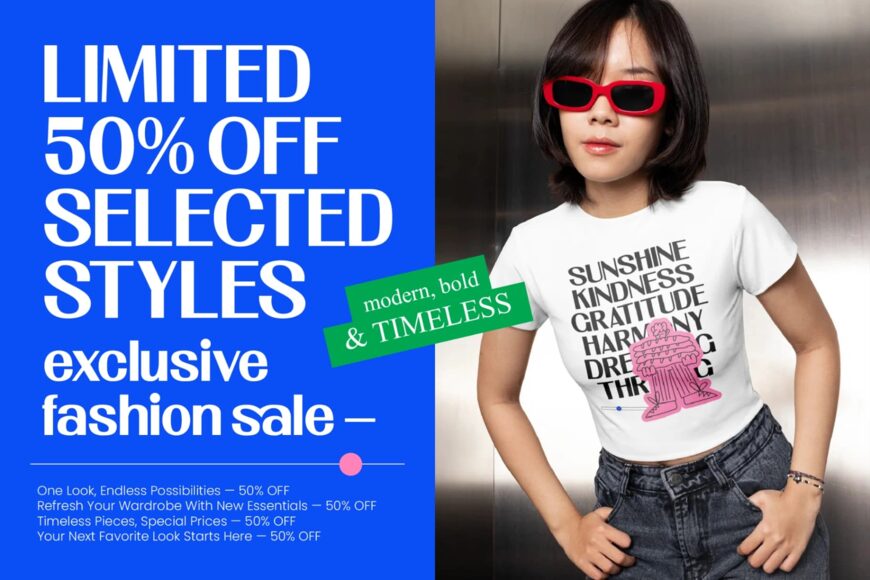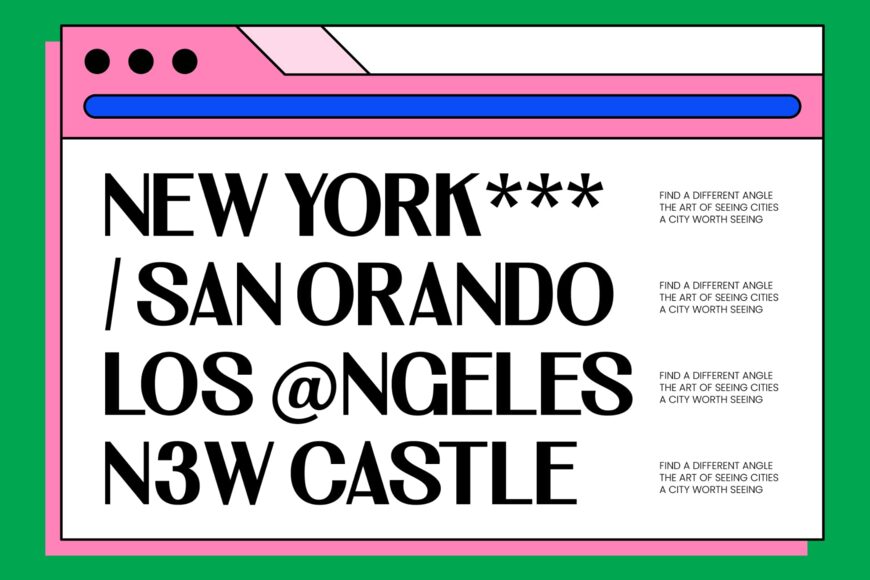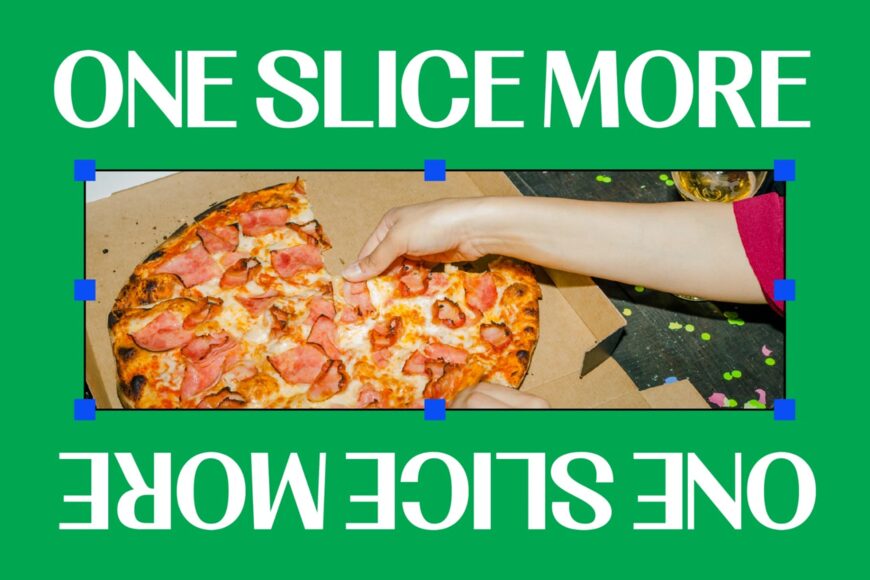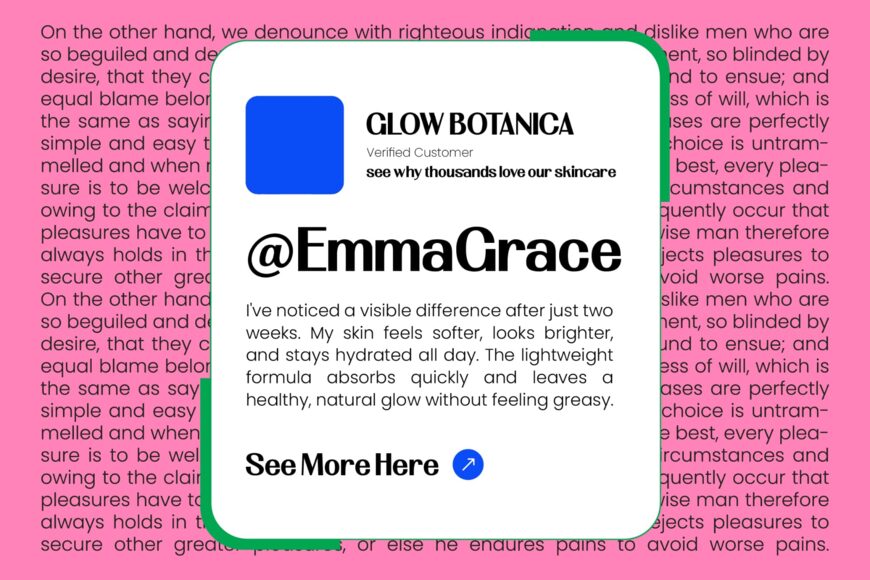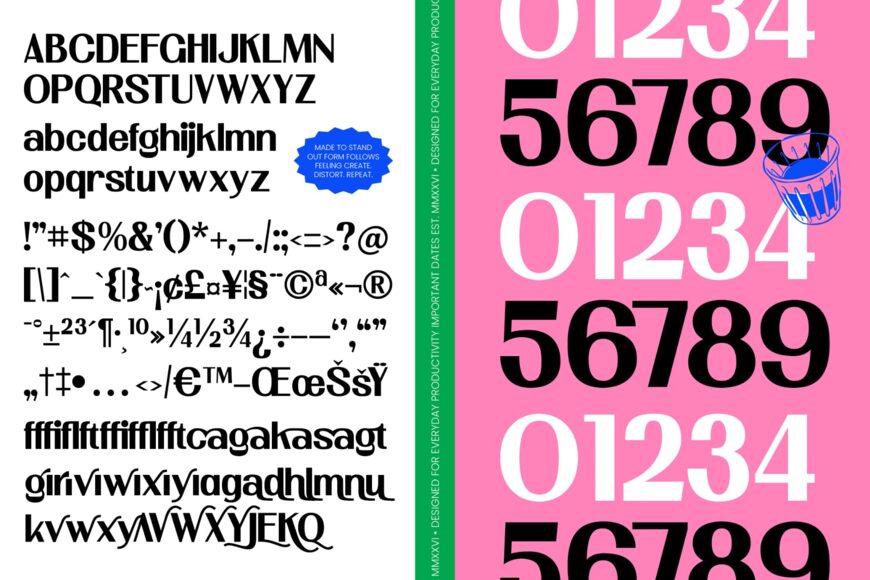
Newstan Font
Elevate your branding with Newstan, a tall condensed sans serif designed for bold, modern impact. Its elongated letterforms and clean, minimalist construction create commanding headlines while balancing professional polish with creative energy. With extensive multilingual support, Newstan works effortlessly across international campaigns and diverse applications.
The family includes 18 ligatures and 23 alternates, giving designers flexibility to create distinctive, customized typography. Its space-saving proportions, crisp lines, and sturdy geometry deliver excellent readability and visual consistency across print and digital designs.